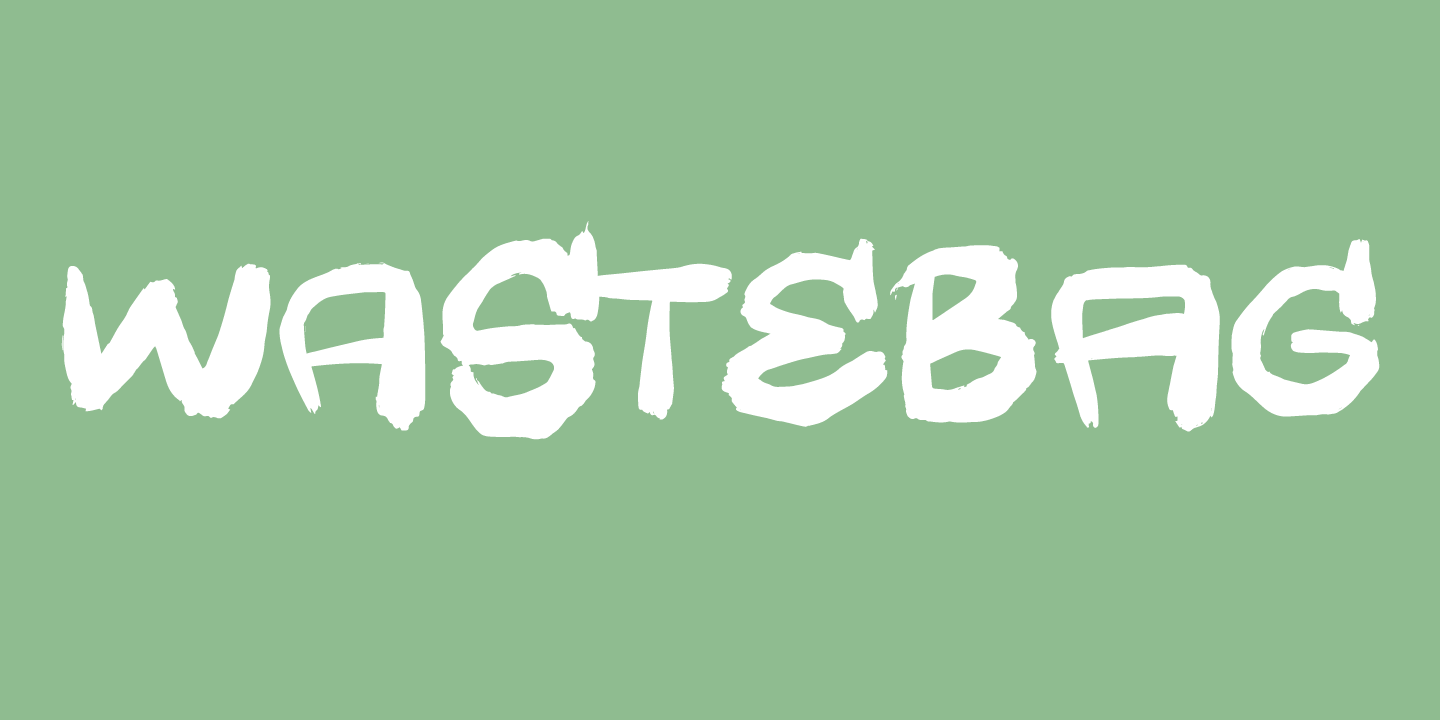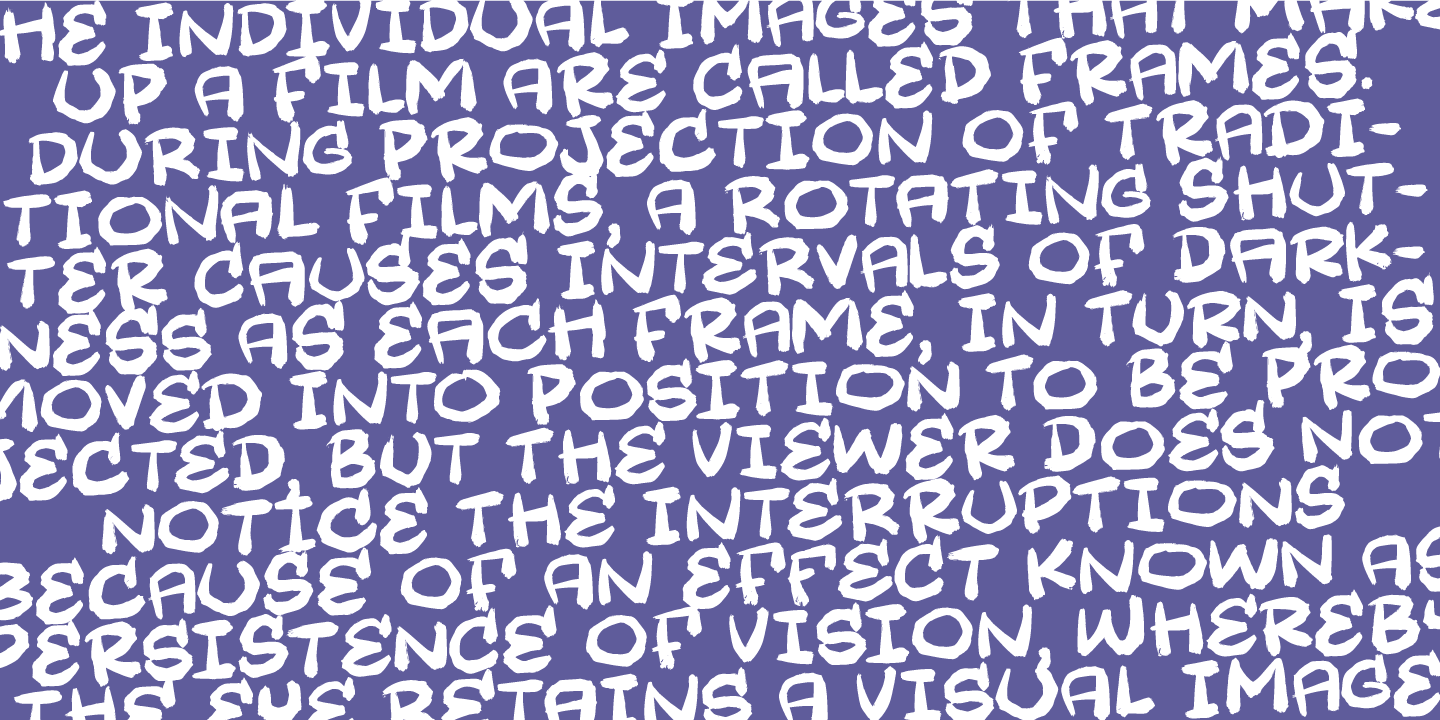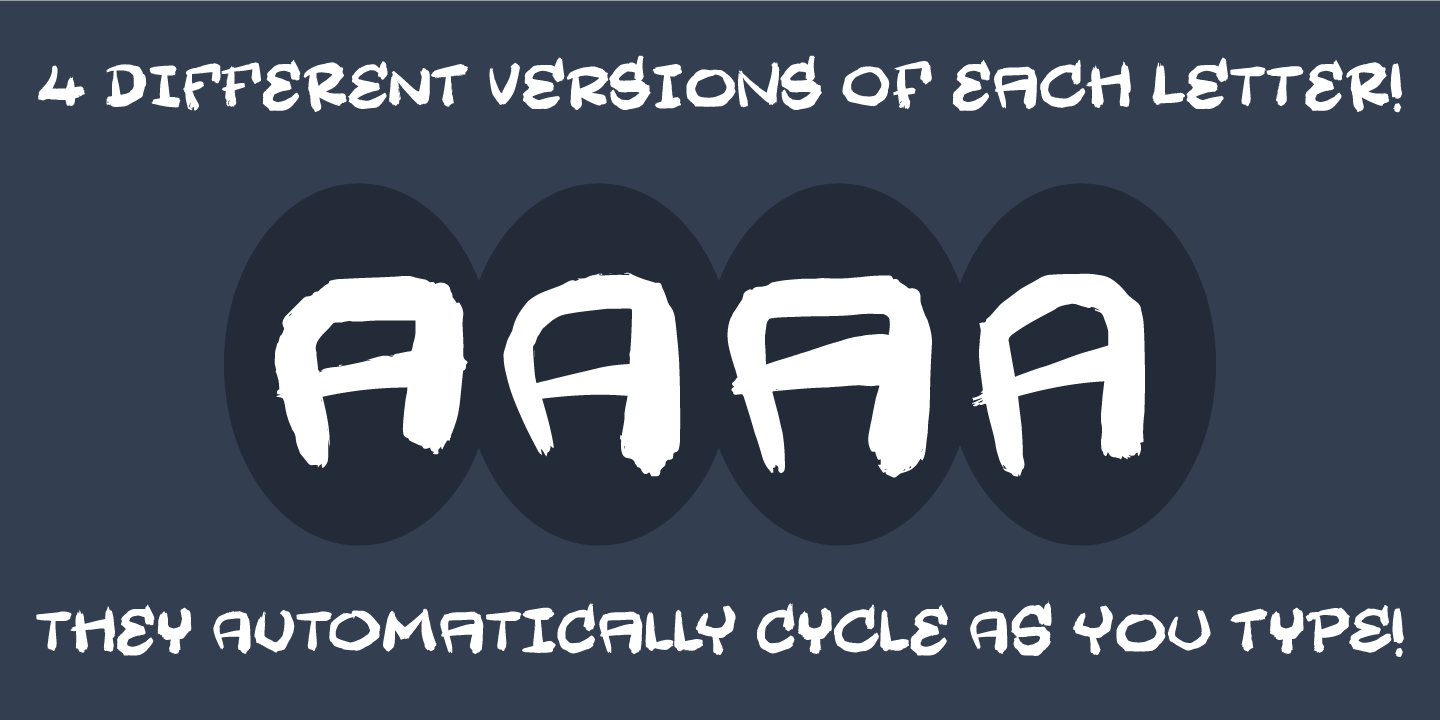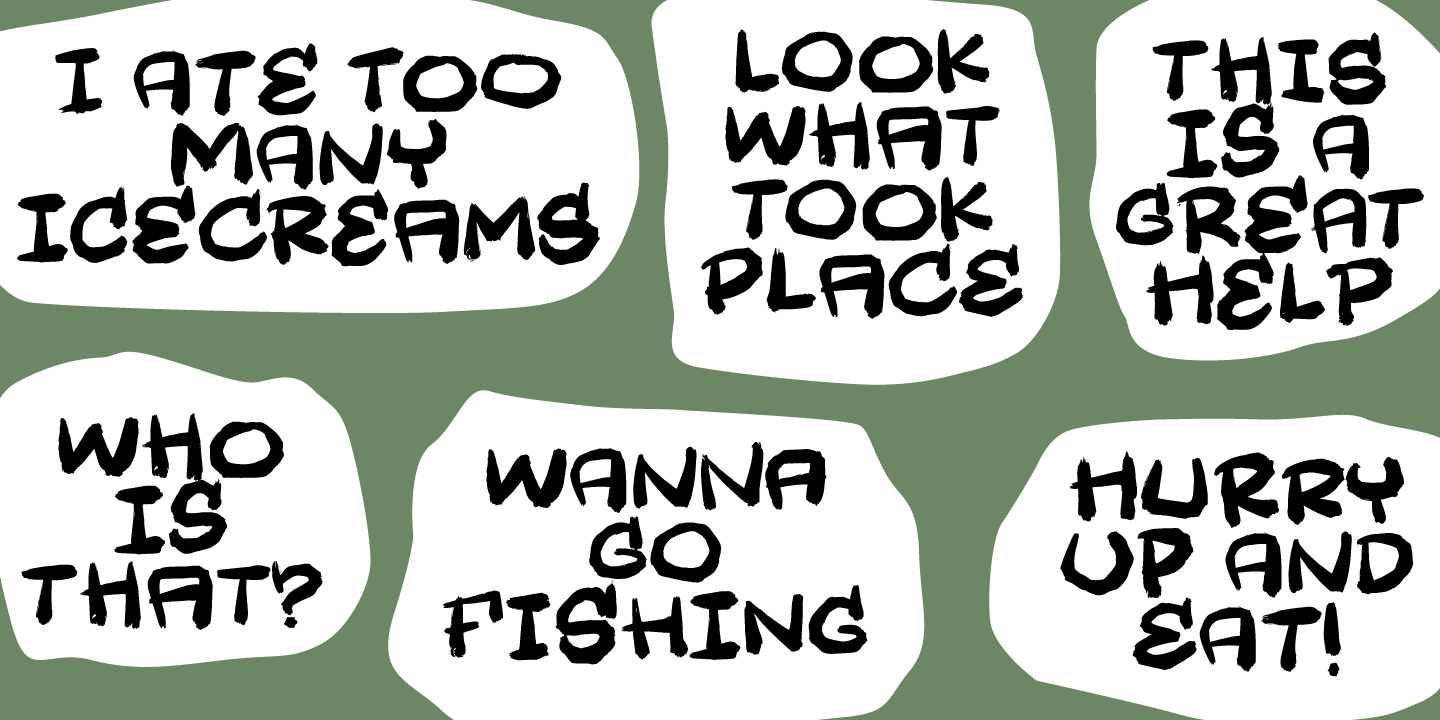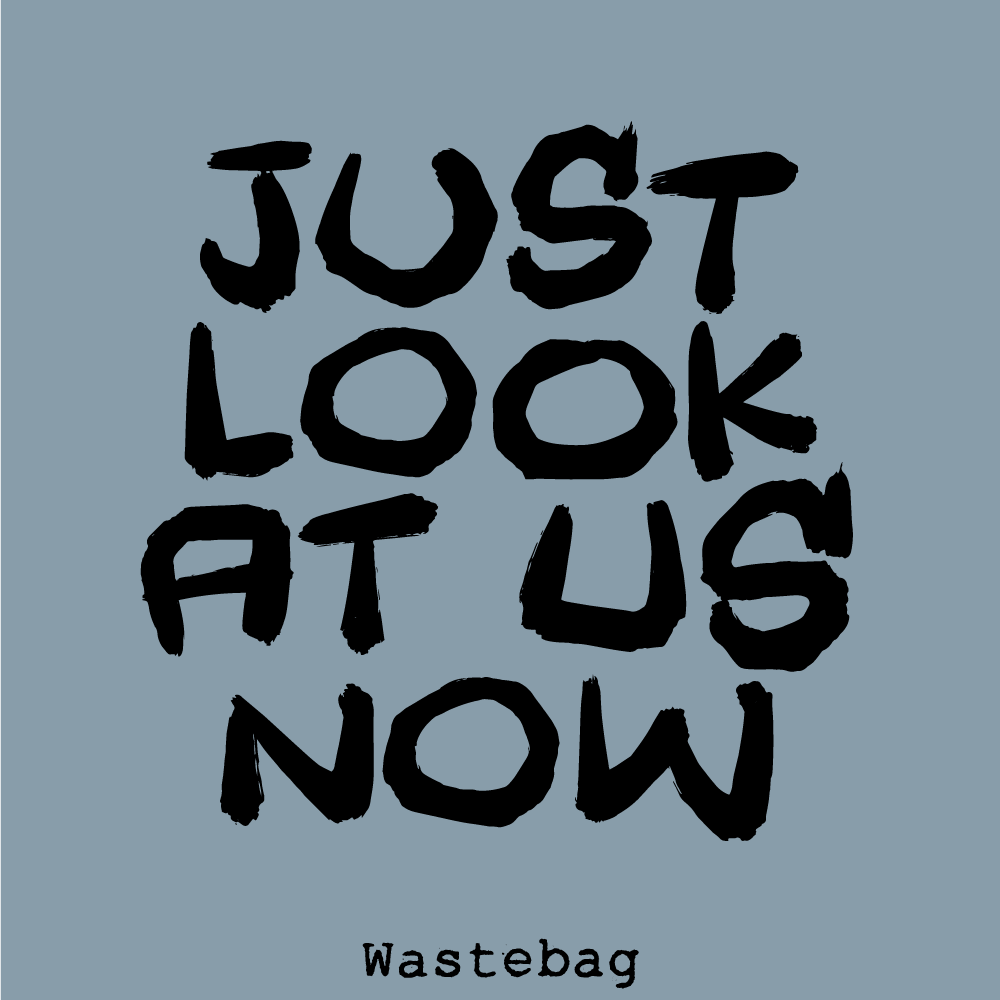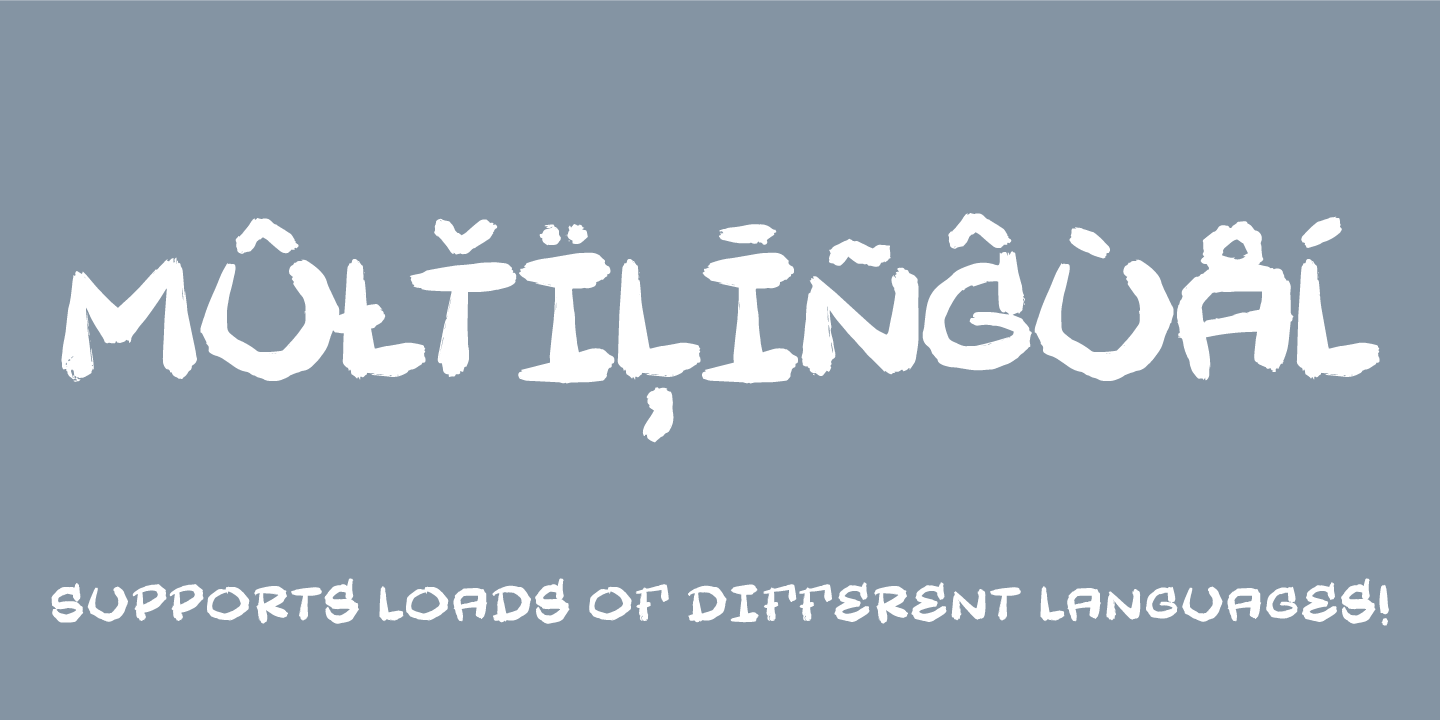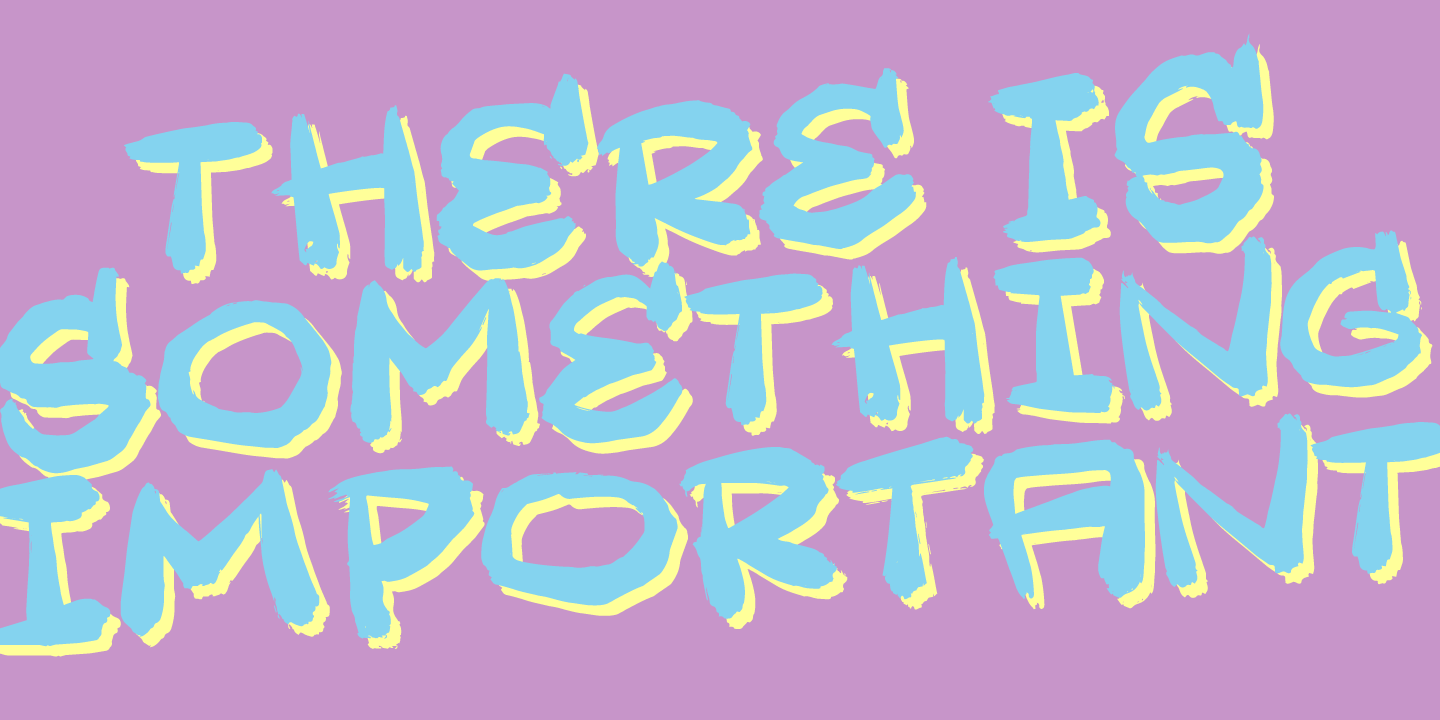
Wastebag
My Wastebag font is grafitti versus comic. Meaning, the font has got both rhythm and style! Of course, Wastebag comes with multilingual support and contextual alternates - 4 different versions of each letter, making it possible to write like all the cool writers!